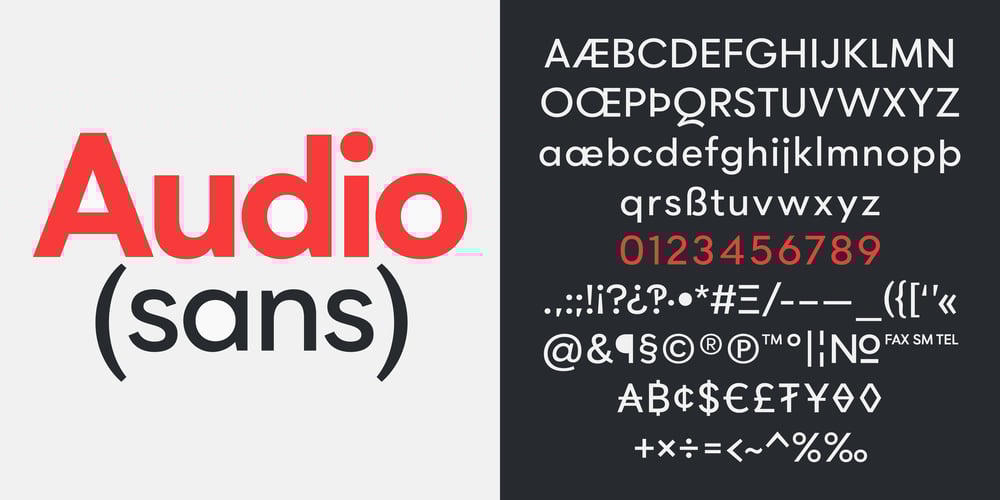
Audio Sans
Audio Sans font
Audio Sans Font Family was designed by Zac Hallgarten and published by AcidType. Audio Sans contains 6 styles and family package options. Audio Sans is a loud geometric sans-serif font family, set in six weights, inspired by vintage album covers.